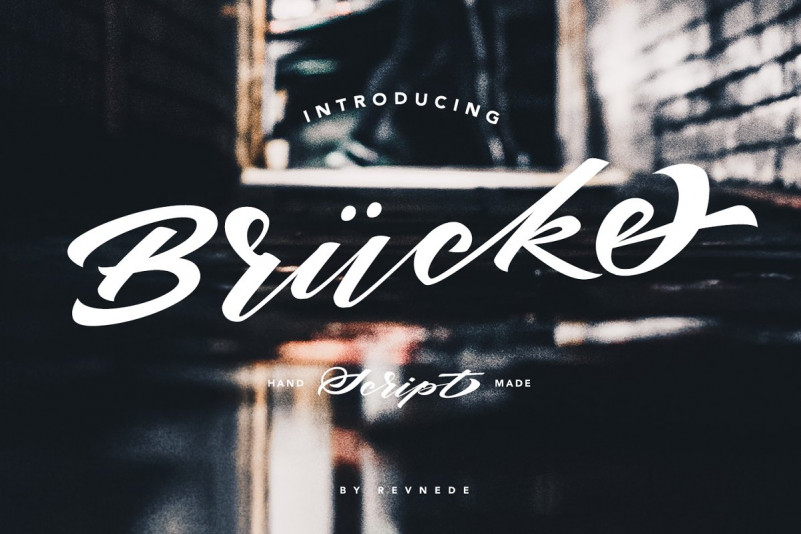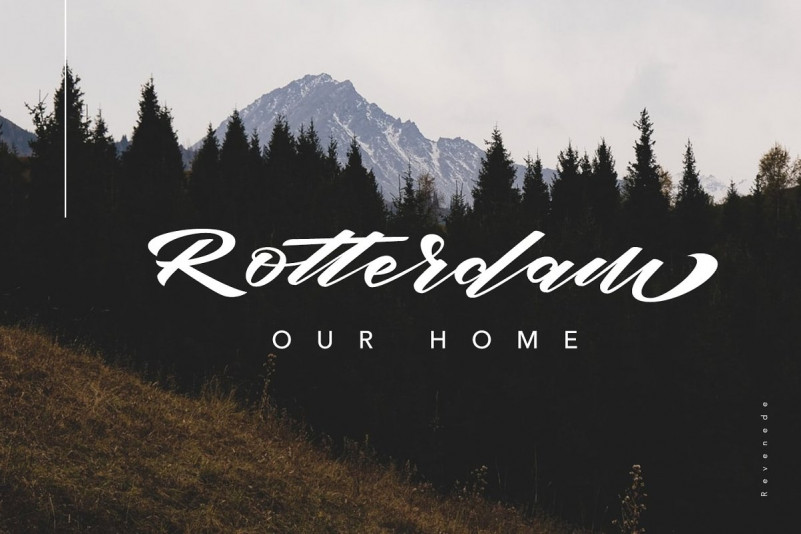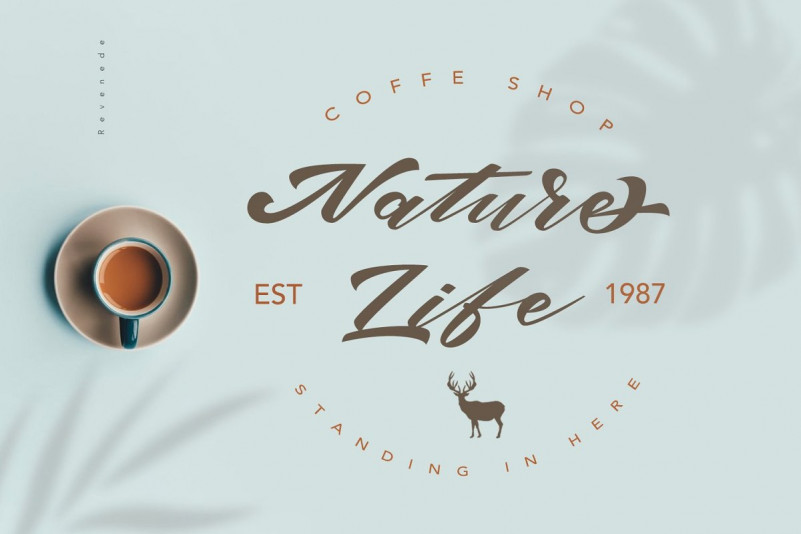
Bruke Script Font
This is a script font that has modern looks. This font is perfect for you who needs modern script as this font is applicable for branding, headline, apparel, packaging. Introducing Bruke Font. It’s designed and shared by Revnede. It’s a stylistic font with a cool taste. It is inspired by music, sci-fi , modern design , and ect. make your design stronger and font useful both for web and print; think websites, posters, menus, logotypes, cards, signage, packaging. but most of all, it is fun to play with.